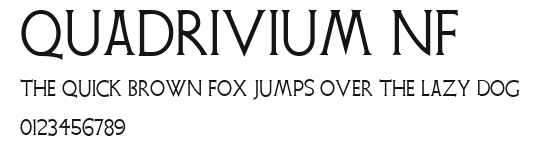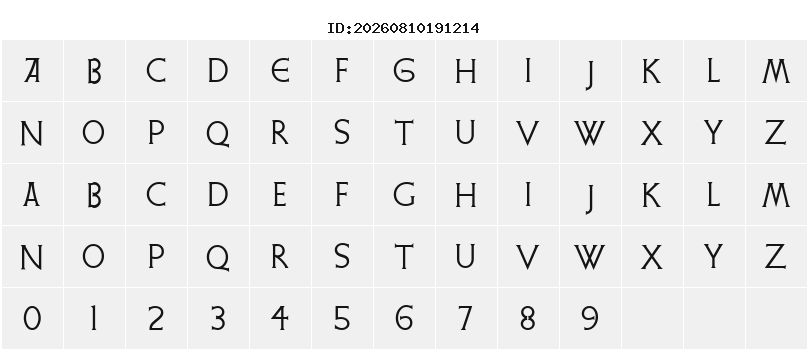
• Font Name: Quadrivium NF
• Designer: Nick Curtis
About Quadrivium NF.ttf
Quadrivium NF.ttf is a modern, elegant sans-serif font designed for ultimate readability and visual harmony. Perfect for branding, headlines, web design, and print materials.